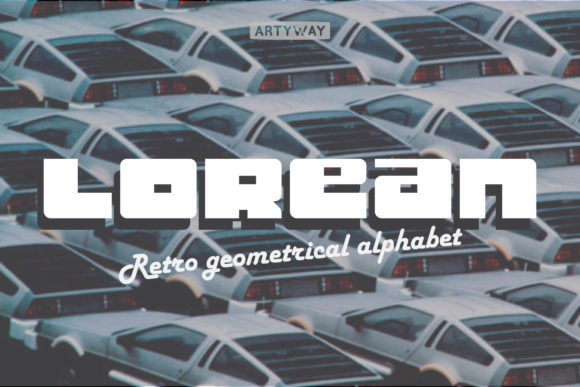
Lorean: A Real-World Designer Review
When I first pulled up Lorean in my type library, the initial reaction was immediate. It is not a shy font. As a display font, it commands attention with a bold, confident presence that feels both retro and refreshingly modern. In an industry saturated with generic sans serif options, Lorean stands out as a true character piece. It has weight, personality, and a distinct rhythm that makes it instantly recognizable. For designers looking to inject some soul into their branding or packaging projects, this typeface offers a compelling visual narrative right from the start.
The Visual Personality of Lorean
Looking closely at the letterforms, you can see where the design intent lies. The strokes are thick and deliberate, creating a mood of stability and strength. There is a certain playfulness in the curves, yet the overall structure remains grounded. This duality makes Lorean incredibly versatile for specific applications. It does not feel like a corporate standard; instead, it feels like a creative statement. When I test it on screen, the contrast between the heavy lines and the negative space creates a dynamic tension that keeps the eye engaged. This is the kind of modern typography that works best when you need to stop a user mid-scroll or grab a customer's attention on a shelf.
Performance in Branding and Logo Design
In the realm of logo design and brand identity, Lorean shines. I have used similar display fonts for boutique coffee shops, streetwear brands, and artisanal food lines, and Lorean fits perfectly into these categories. Its robust nature allows it to scale well, maintaining its integrity even when simplified for a favicon or a small icon. However, because it is so distinctive, it should be treated as the star of the show. It is not a workhorse body text font. Instead, use it for the primary mark, the main headline, or the key phrase that defines your brand voice. When paired with a clean, neutral sans serif font for supporting details, the combination creates a hierarchy that is both professional and visually striking.
Practical Applications in Packaging and Print
For those involved in packaging design and product labels, Lorean offers excellent opportunities. Imagine a jar of hot sauce, a box of gourmet cookies, or a label for craft beer. The font's boldness translates beautifully to print, ensuring legibility even from a distance. The thick strokes hold up well against textured paper stocks and vibrant inks. I always recommend testing a font in black and white before committing to a full color palette, and Lorean passes this test with flying colors. The shapes remain clear and distinct without relying on color to define them. This makes it a reliable choice for high-quality printable design assets and physical merchandise.
Beyond packaging, Lorean is a powerhouse for editorial layouts and posters. Whether you are designing a concert flyer, a wedding invitation, or a magazine cover, this typeface adds a layer of sophistication and flair. It works exceptionally well for short phrases, quotes, and decorative accents. The key is to let the letters breathe. Give them ample spacing and avoid cramming too much text into a single line. When used correctly, Lorean elevates the entire composition, turning a simple message into a memorable visual experience.
Digital Use and Social Media Graphics
In the digital landscape, specifically for web design and social media graphics, Lorean serves as an effective tool for engagement. Headlines on landing pages, hero sections, and Instagram posts benefit from its commanding presence. It cuts through the noise of the feed, drawing the viewer in immediately. However, readability becomes a factor when dealing with smaller screens. While Lorean looks stunning in large sizes, it can become difficult to read if used for long paragraphs or small captions. Stick to using it for headlines, calls to action, and emphasis points. Pair it with a highly legible serif font or a minimal sans serif font for the body copy to ensure your audience can consume the content comfortably.
For digital sellers and creators making Canva templates or digital products, Lorean adds a premium touch. It signals quality and creativity, which can increase the perceived value of your templates. Whether you are selling planners, social media kits, or printable wall art, including a strong display font like Lorean gives your customers a ready-made solution for impactful design. Just remember to check the licensing terms to ensure it is approved for commercial resale in your specific product format.
Strategic Font Pairing and Readability
One of the most critical aspects of using a creative font like Lorean is knowing how to pair it. Because it has such a strong personality, it needs a partner that complements rather than competes. I often find success pairing Lorean with a classic serif font for a look that blends vintage charm with modern edge. Alternatively, a geometric sans serif font provides a clean, contemporary backdrop that lets Lorean take center stage. Avoid pairing it with other display fonts, script fonts, or handwritten font styles unless you are aiming for a very specific, eclectic aesthetic. Too many competing styles can clutter the design and confuse the viewer.
Readability and hierarchy are paramount. Lorean affects audience trust by projecting confidence and professionalism when used appropriately. If you overuse it or apply it to inappropriate contexts, it can feel chaotic or unprofessional. Always test the font on real mockups. See how it looks on a business card, a website header, or a t-shirt. Check the spacing between characters (kerning) and lines (leading). Sometimes, slight adjustments can make a massive difference in how the type feels. Ensure that the uppercase and lowercase forms work harmoniously together, especially if you plan to use mixed case in your headlines.
Designer Notes and Licensing Considerations
Finally, consider the emotional impact. Lorean is a premium font that conveys a specific mood. Is that mood aligned with your brand or your client's vision? If the answer is yes, then Lorean is a powerful addition to your toolkit. It is a font that demands respect and careful application, but when used with intention, it delivers results that are nothing short of exceptional. From editorial design to brand identity, this typeface proves that good design is about more than just aesthetics; it is about communication, connection, and clarity.